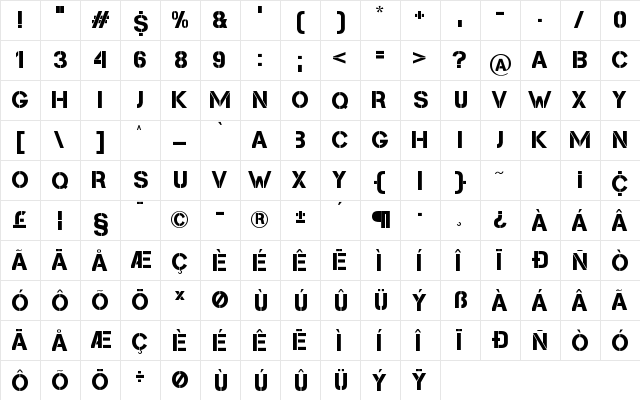
Cleanwork Regular
Design Context for Cleanwork Typeface
Cleanwork takes a measured approach to typography — its balanced proportions and neutral character make it a reliable workhorse for both digital and print work.
Pro Tip: Use Cleanwork in both headline and body roles to test its range before committing to a single application.